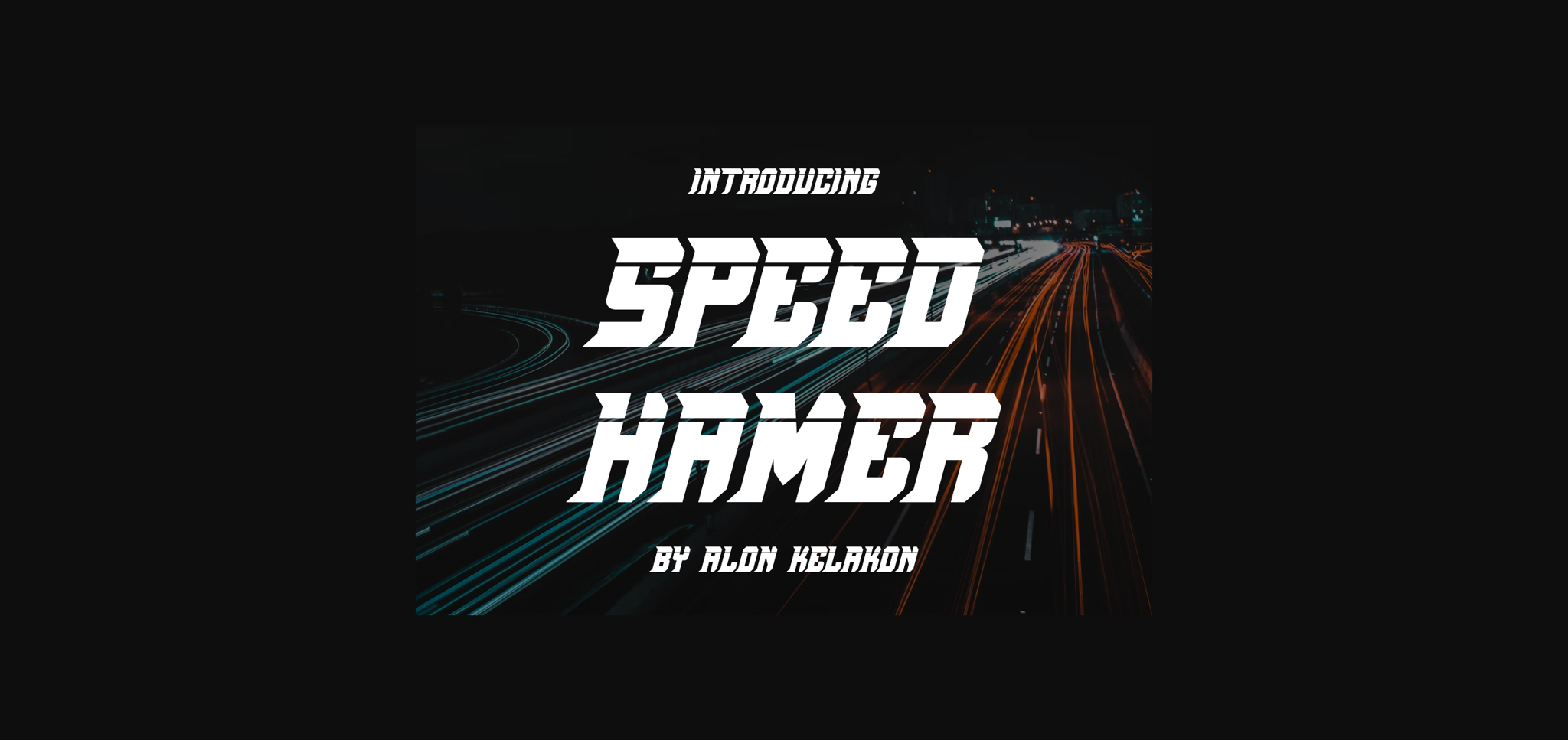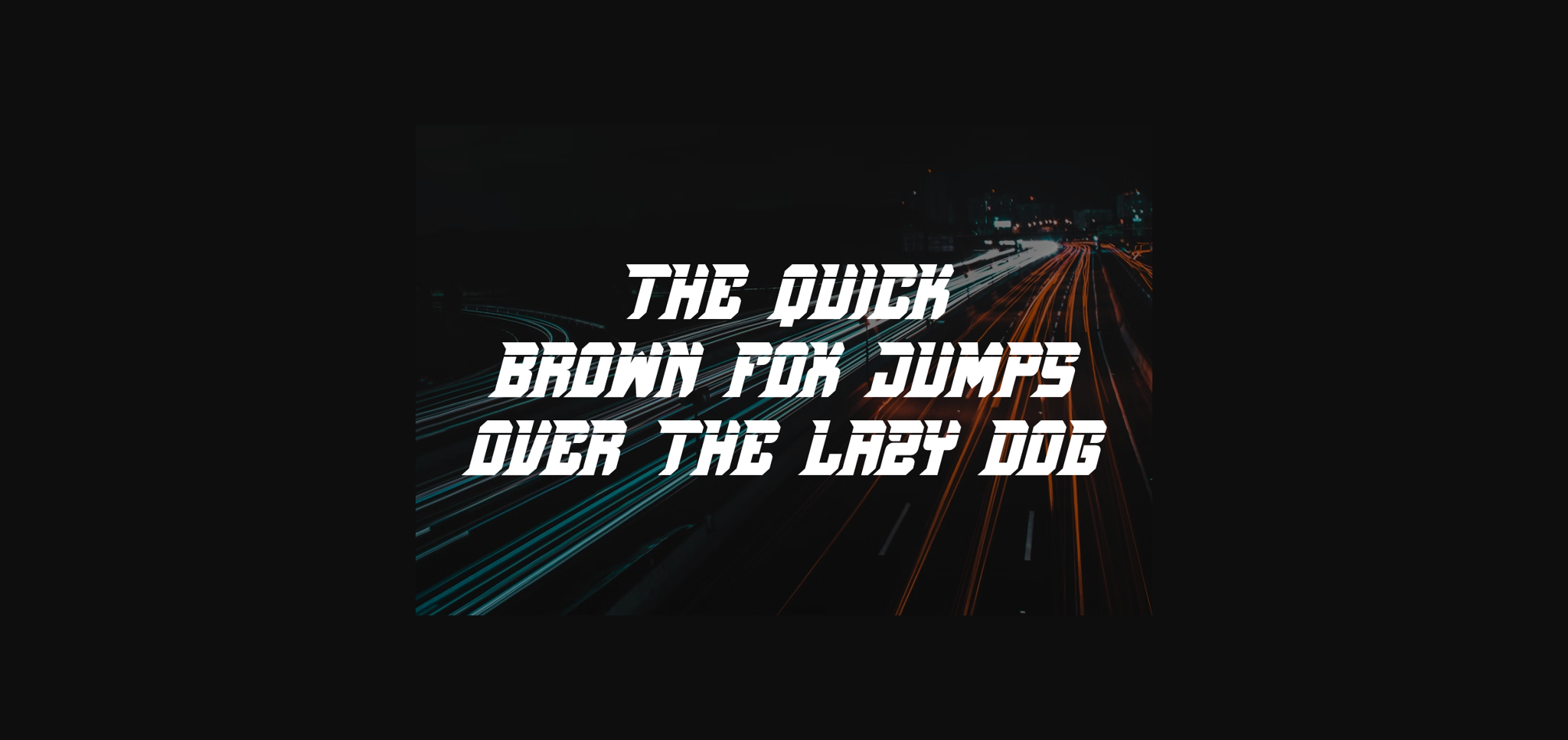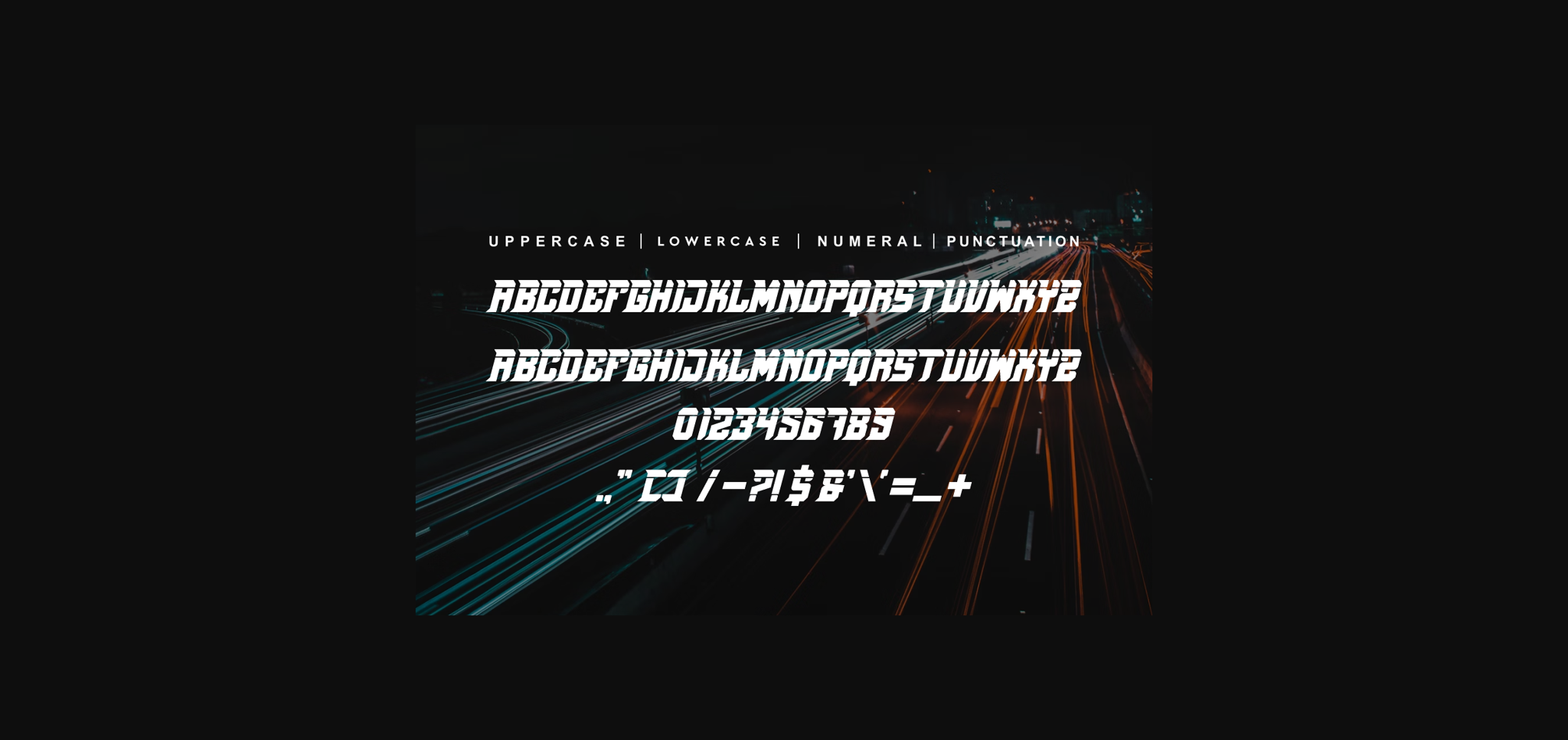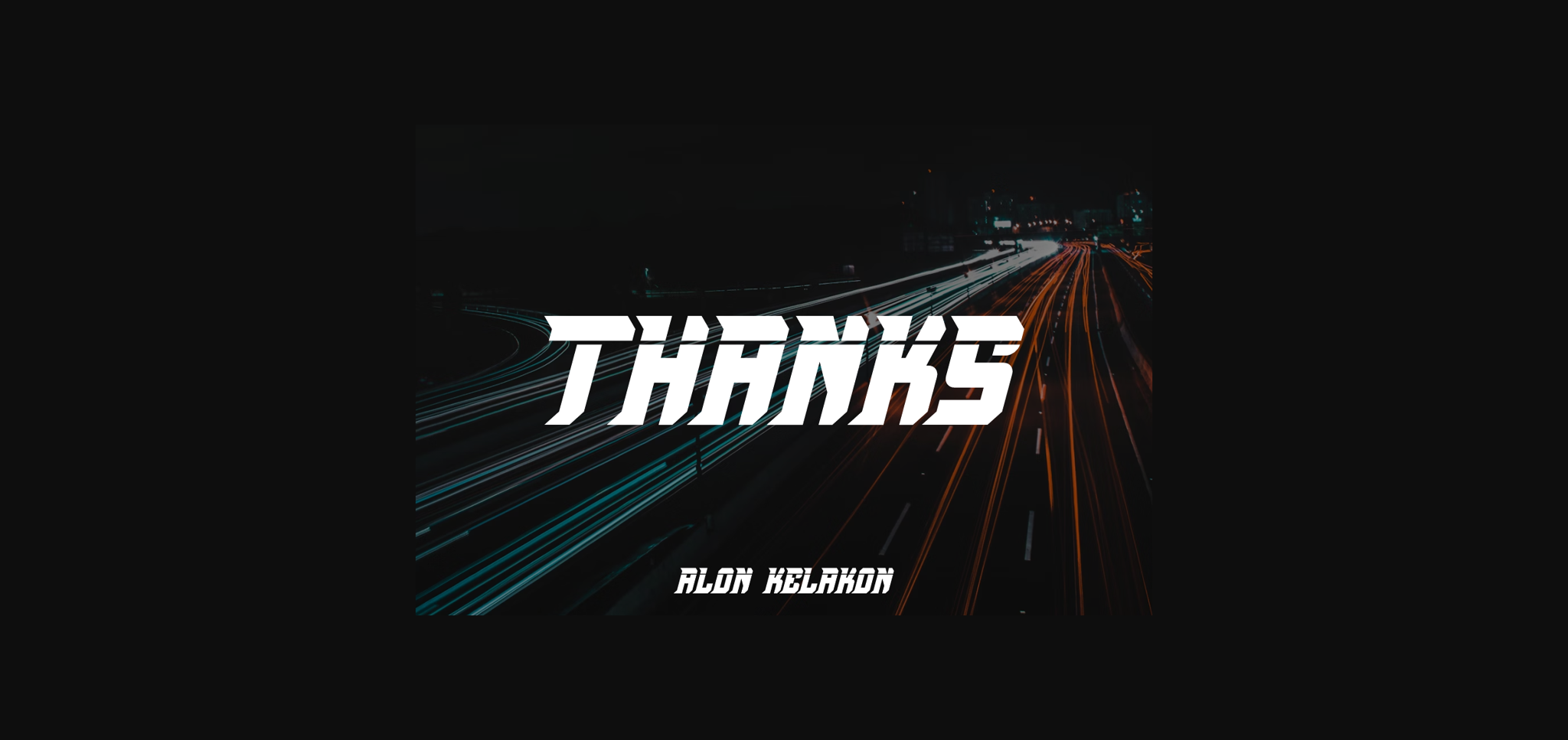
Speed Hamer Font
About Speed Hamer Font
Unleash your creativity with **Speed Hamer** Font, your go-to typeface for an unparalleled design experience. Speed Hamer is not your ordinary font – it’s a typography revolution bespoke for a wide plethora of uses. Envisioned for labeling, brightening up movie scenes, front-lining posters, crafting memorable movie titles, staging pulsating gigs, jazzing up album covers, redefining logos, and so much more. It is availed in multiple formats, including OTF, TTF, and WOFF to cater to your project’s specific needs. Welcome to a world where style meets functionality; welcome to the realm of Speed Hamer Font.